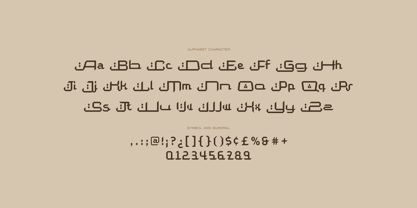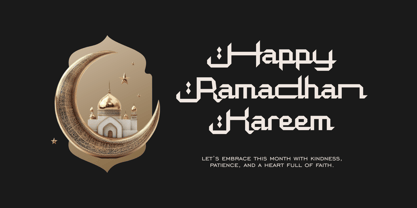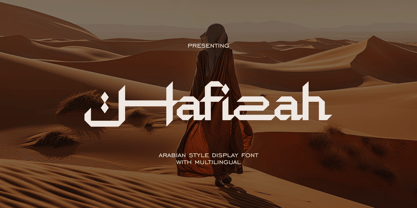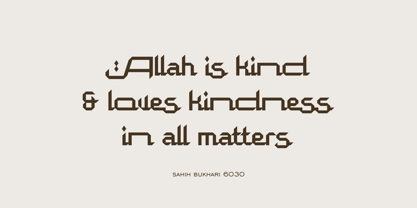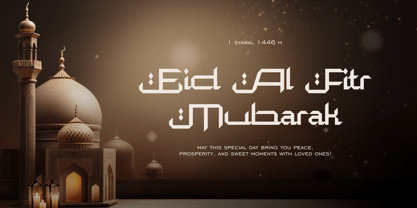
Hafizah
par Runsell Type
La famille de polices Hafizah a été conçue par Satia Hayu Prabowo et publiée par Runsell Type. Hafizah contient 1 styles. En savoir plus sur cette famille
Hafizah inspired from the timeless beauty of Arabic script, this display font captures the essence of traditional calligraphy while embracing a bold, modern twist. With its flowing, sweeping curves and geometric elegance, this font exudes a sense of sophistication and cultural richness. Ideal for headlines, posters, logos, and branding that aim to evoke a sense of heritage and contemporary flair, it brings a distinctive, exotic touch to any design. The balance between fluidity and structure makes this font perfect for projects that demand attention and a strong visual presence.
Concepteurs: Satia Hayu Prabowo
Fonderie: Runsell Type